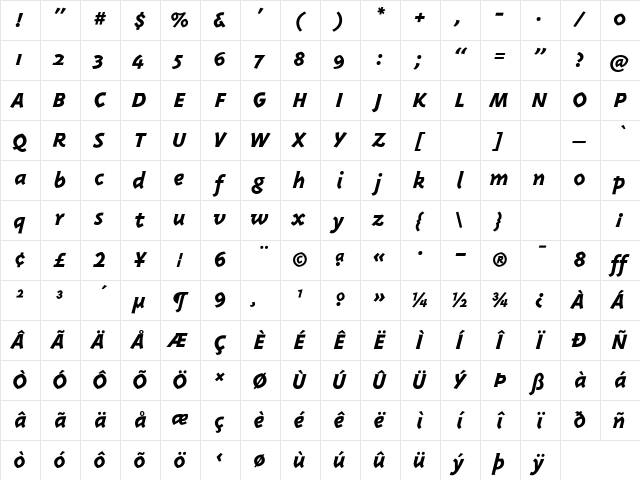
Triplex-ExtraBold Extra BoldItalic
Style: Extra BoldItalic
Triplex-ExtraBold Family
Design Context for Triplex-ExtraBold
Triplex-ExtraBold is a composed and adaptable typeface that performs quietly and consistently across a wide range of design contexts. The slanted form adds forward momentum and visual energy. Its bold stroke weight gives it real presence on the page.